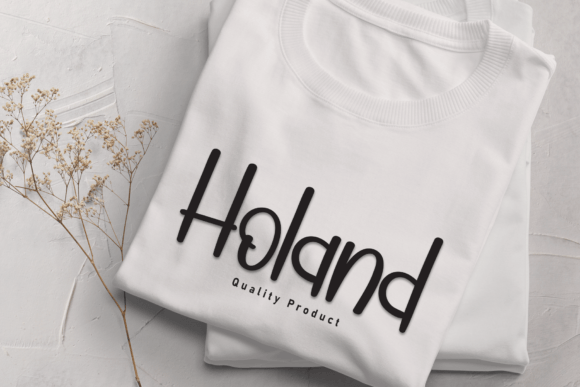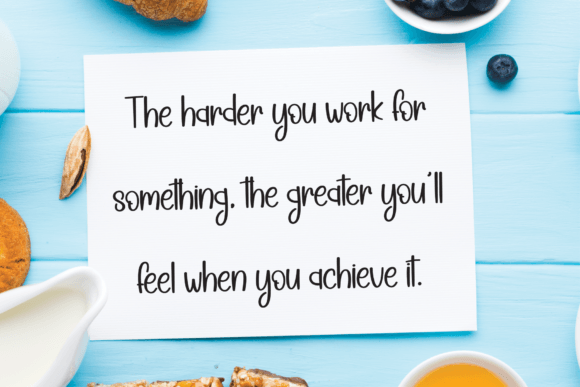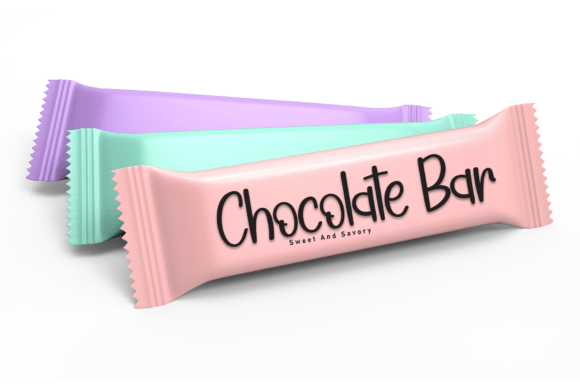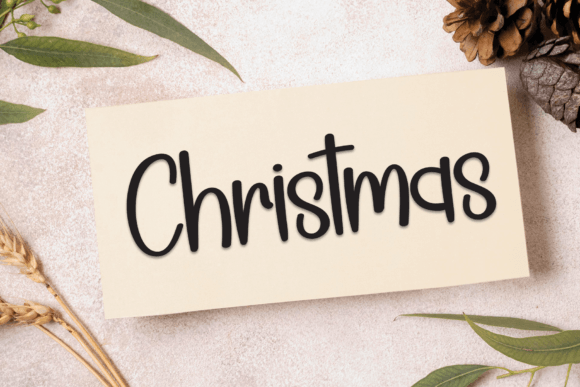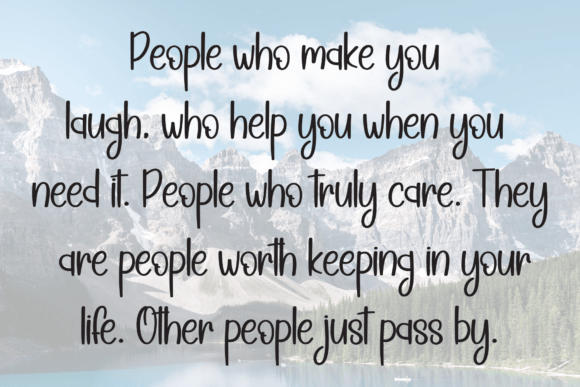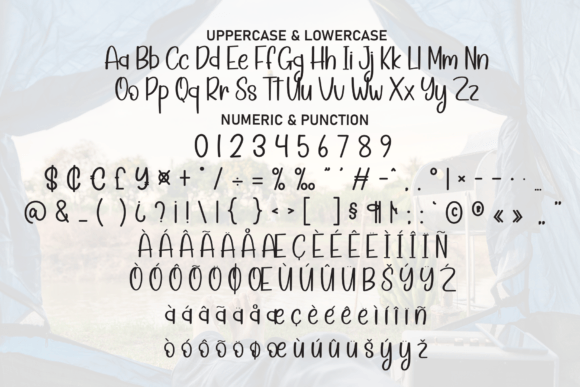
Discover the Charm of Camping Solitude Font: A Sweet and Friendly Handwritten Display Font
Have you ever been in the middle of a design project, and suddenly, you’re stuck on finding the perfect font? I recall a recent experience where I was working on a wedding invitation design, and my client requested a font that was both elegant and playful. After scouring through numerous font libraries, I stumbled upon the Camping Solitude Font, and it instantly became the perfect fit. In this article, we’ll dive into the world of Camping Solitude Font, exploring its features, uses, and what makes it a fantastic addition to any design project.
A Personal Review: What I Love About Camping Solitude Font
The Camping Solitude Font has quickly become one of my go-to fonts for various design projects. Here are some aspects that I absolutely love:
• ✨ Endearing and Enjoyable Nature: This font has a unique ability to add a delightful touch to any project, making it perfect for wedding invitations, cards, and other designs that require a playful twist.
• ✅ Handwritten Elegance: The font’s handwritten elegance transforms ordinary designs into extraordinary ones, making it an excellent choice for designers and crafters.
• 💕 Whimsical and Charming: The Camping Solitude Font has a whimsical and charming personality that makes it perfect for designs that require a touch of personality.
While the Camping Solitude Font is an excellent choice for many design projects, there are a few quirks to be aware of:
• ⚠️ Limited Use in Small Sizes: The font’s intricate details and handwritten elegance may not be suitable for small font sizes, as it may appear blurry or difficult to read.
• 🤔 Kerning Issues: Some users have reported kerning issues when using the font in certain design software. However, these issues can be easily resolved by adjusting the kerning settings.
The Camping Solitude Font was designed with the intention of creating a font that captures the essence of handwritten elegance. The designer aimed to create a font that is both whimsical and charming, making it perfect for designs that require a touch of personality. The font’s unique features and characteristics make it an excellent choice for designers and crafters looking to add a personal touch to their designs.
What is the Camping Solitude Font? The Camping Solitude Font is a sweet and friendly handwritten display font designed to add a touch of whimsy and charm to any design project.
Does the Camping Solitude Font support OpenType features? Yes, the Camping Solitude Font supports OpenType features like glyphs and stylistic alternates, making it an excellent choice for designers who want to add a personal touch to their designs.